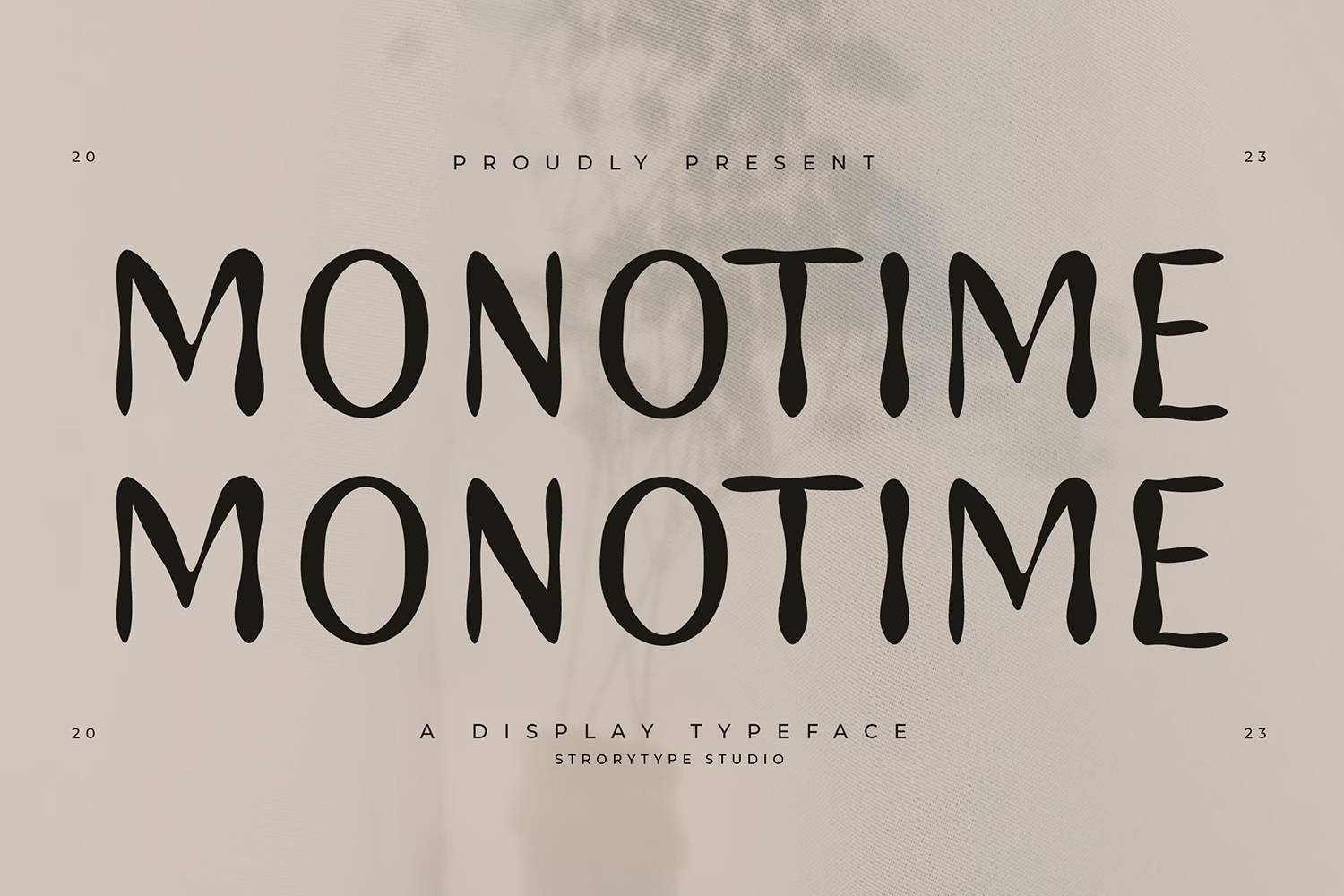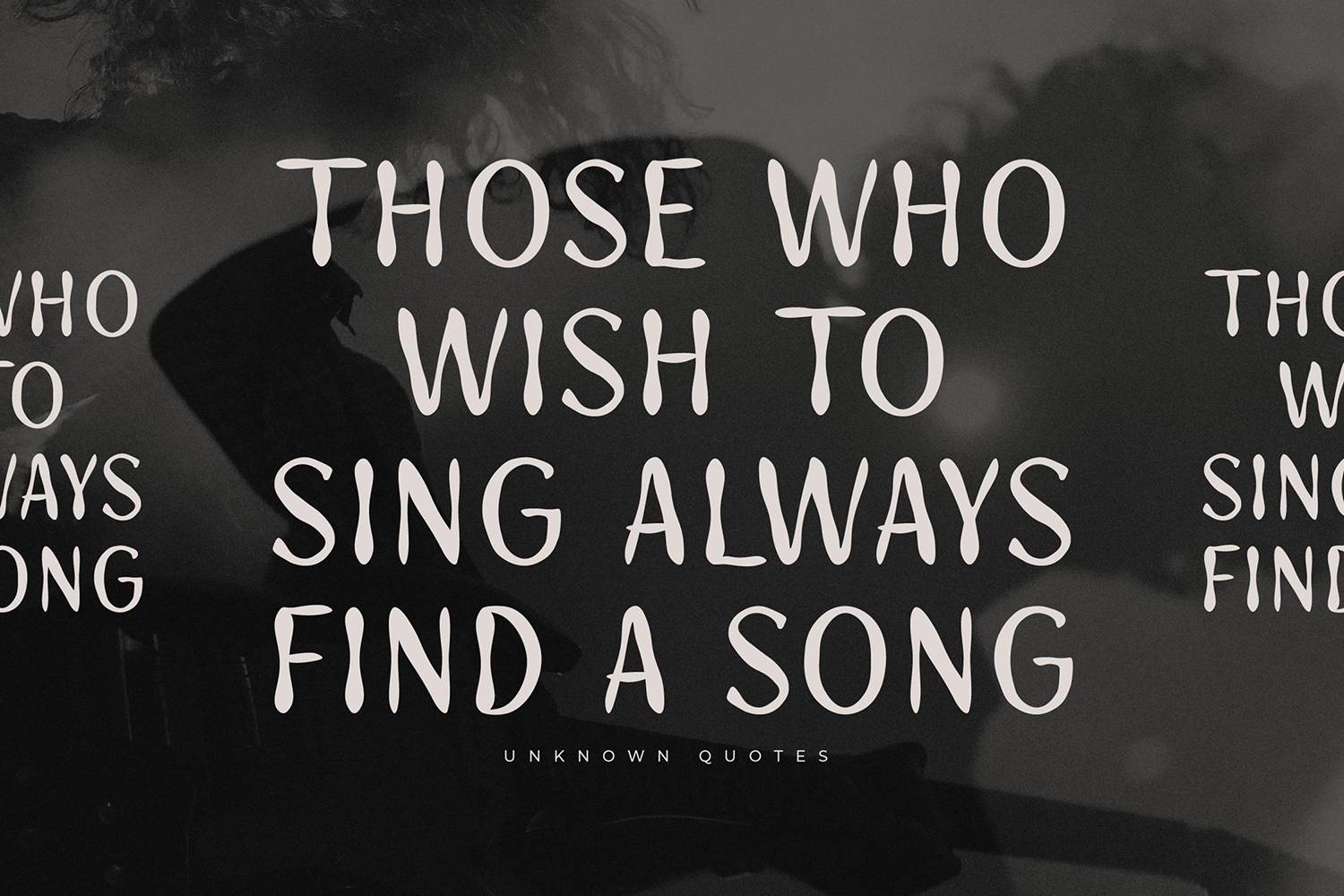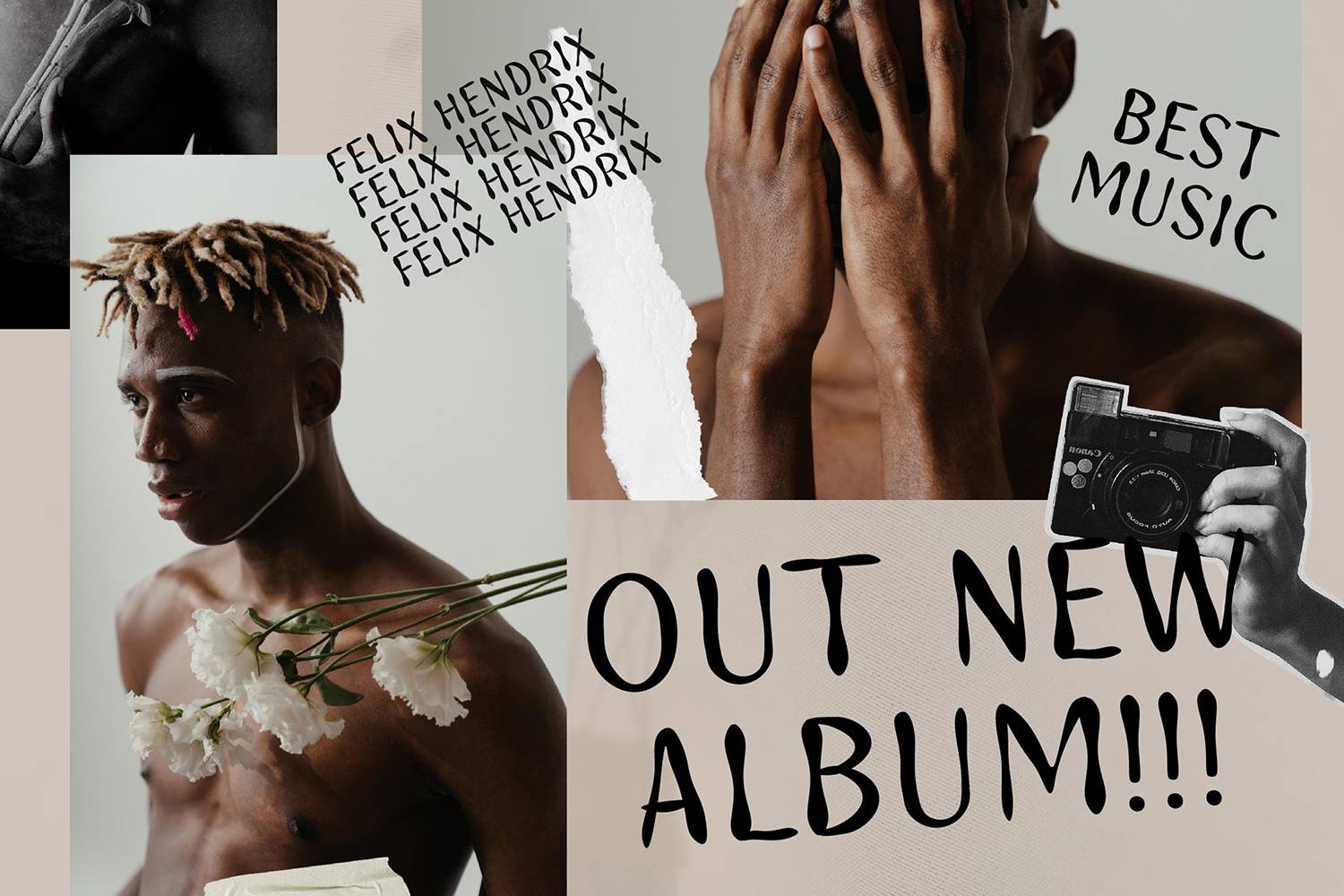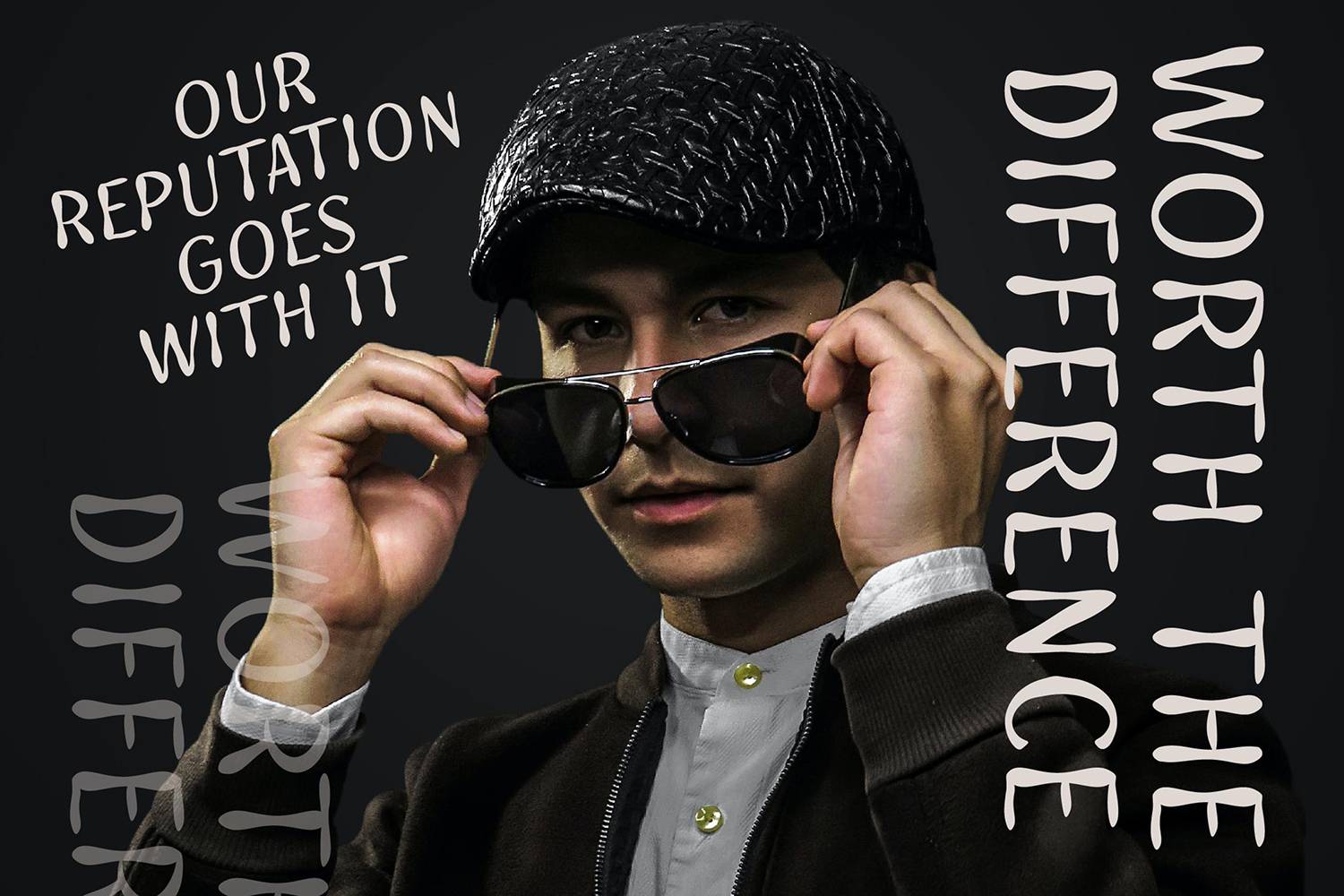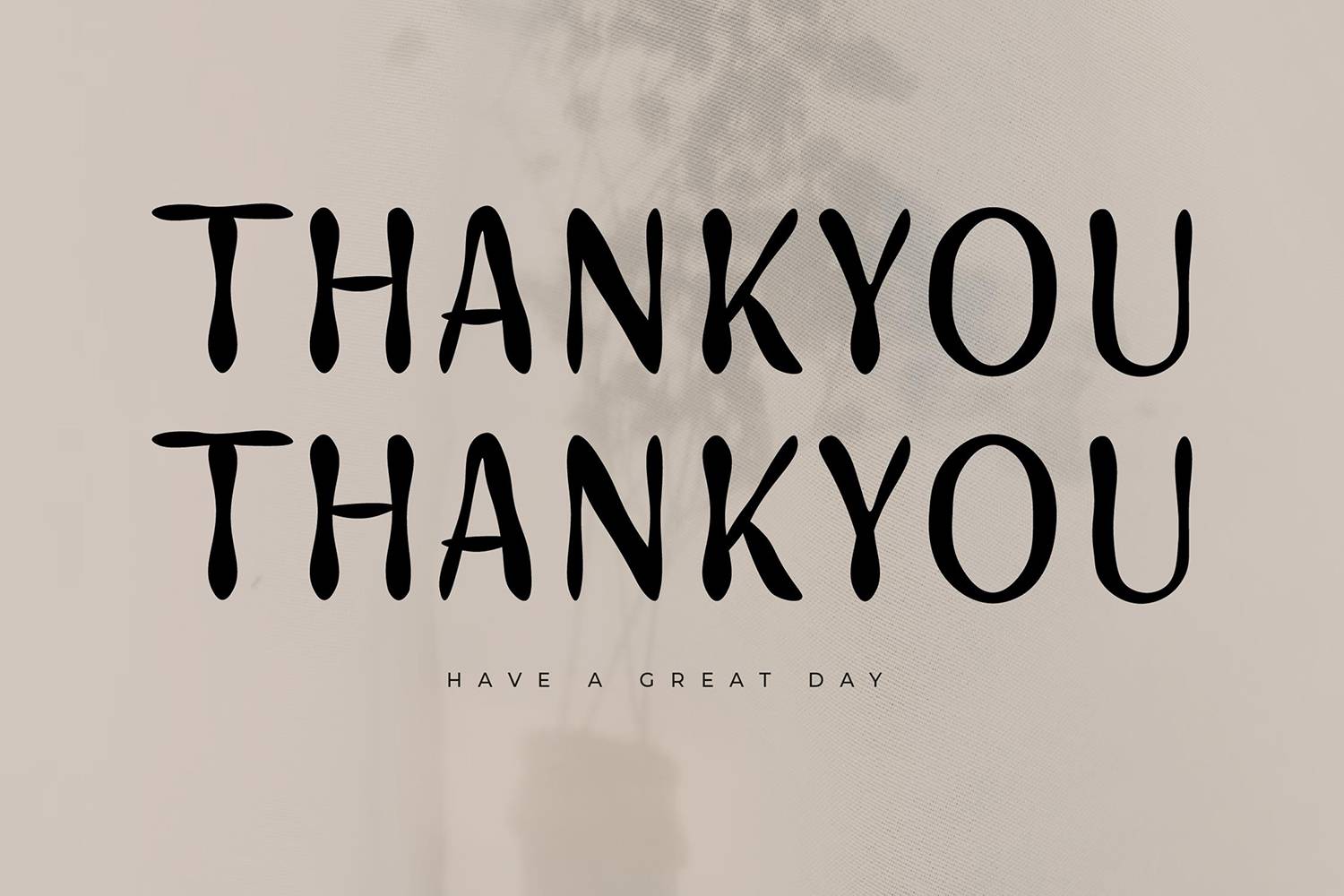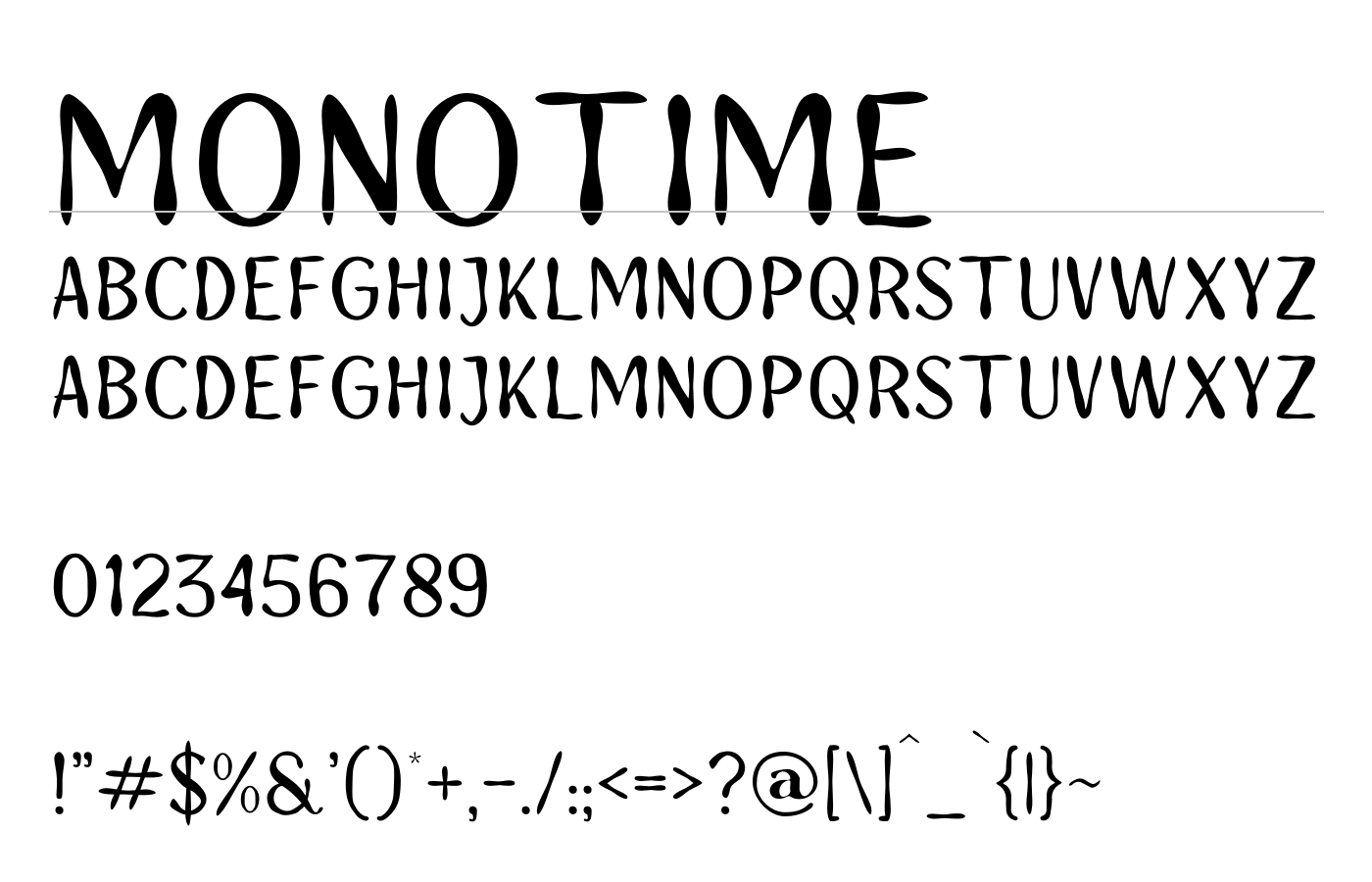
Monotime is a playful handwritten sans serif font with a casual, organic feel created by its uneven strokes and quirky letterforms, like the distinctive single-story 'a' and rounded 'g'. Its moderate weight and tall x-height make it readable yet engaging, perfect for creative projects that need a friendly and approachable vibe. This font works wonderfully for informal branding, children’s content, and fun editorial headlines where a personal, relaxed touch is desired.
Monotime Font
About Monotime Font